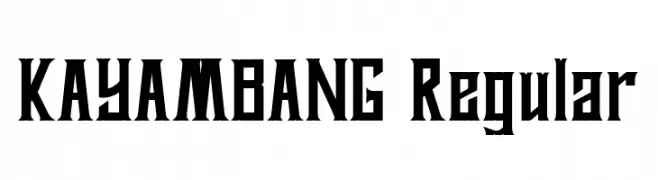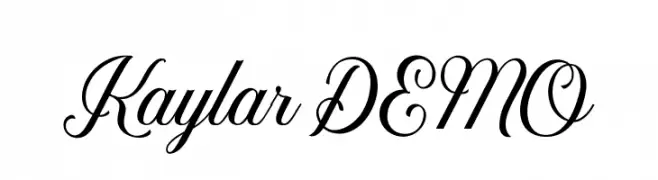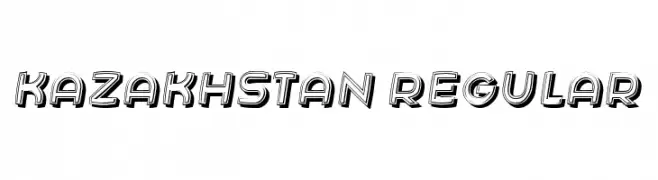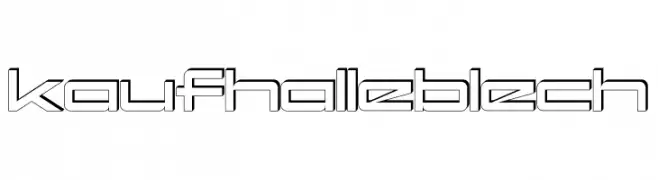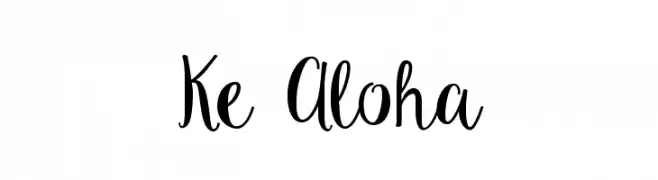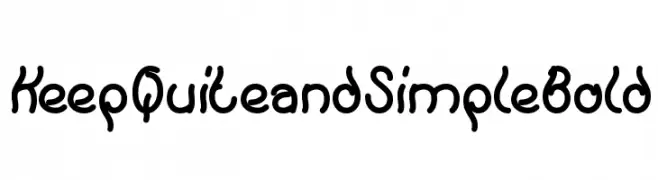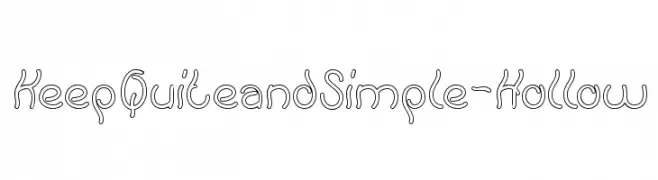
A futuristic, geometric font with hollow, outlined characters.
A sophisticated serif font with a playful twist, ideal for versatile applications.
A bold, geometric font with sharp angles and a modern, edgy appearance.
An elegant and flowing script font with graceful curves and dramatic flourishes.
An elegant script font with flowing, cursive strokes and sophisticated style.
A bold, 3D-effect font with a playful and structured design.
A playful and elegant handwritten script font with fluid, connected characters.
A playful, bold font with rounded, hand-drawn letterforms.
A bold, italic, and playful font with a handwritten style.
A playful, hollow outline font with smooth curves and a whimsical style.